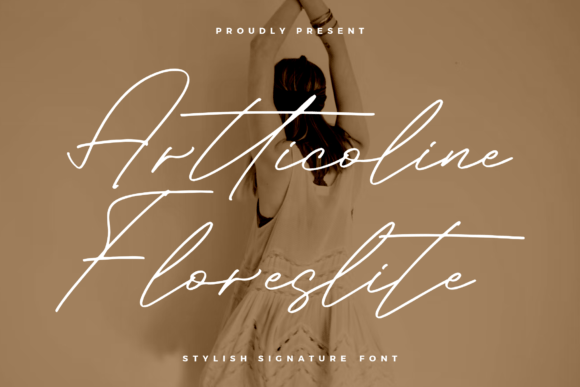
Introducing Artticoline Floreslite Font, the ultimate choice for all your design needs. Created by the talented team at Letterfabric Studio, this stylish signature font is guaranteed to elevate your projects to new heights. Crafted with precision and attention to detail, it is the perfect font for visit cards, logos, branding projects, homeware designs, product packaging, and much more.
With its elegant script style, Artticoline Floreslite Font adds a touch of sophistication and charm to any creative endeavor. Its flowing lines and exquisite curves create a visually captivating experience that is sure to leave a lasting impression on your audience. Whether you're designing a poster, a shopping bag, or even a book cover, this font will make your creations stand out from the crowd.
But it doesn't stop there. Artticoline Floreslite Font is more than just a pretty face. It is a versatile tool that adapts to your unique vision. Its flexibility allows it to seamlessly blend with various design elements, giving you endless possibilities for customization. Let your imagination run wild as you explore the countless ways this font can enhance your projects.
Not only does Artticoline Floreslite Font offer aesthetic appeal, but it also adds a touch of emotion to your creations. Its graceful strokes and fluid movements evoke feelings of elegance, sophistication, and refinement. With this font, you can effortlessly convey a sense of luxury and exclusivity, making your designs irresistible to your target audience.